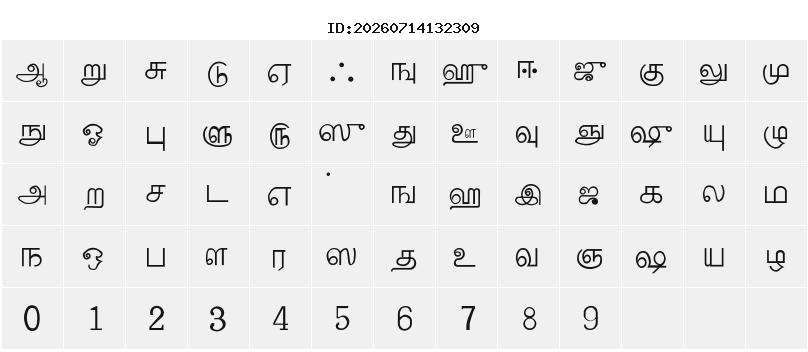
Happyday-Normal Preview
About Happyday-Normal.ttf
Happyday-Normal.ttf is a modern, elegant sans-serif font designed for ultimate readability and visual harmony. Perfect for branding, headlines, web design, and print materials.